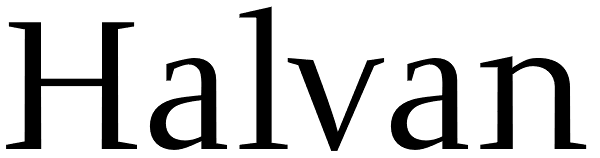
Halvan
HALVAN –a striking type with half-serifs The Halvan font family comes in 5 styles from Roman to Bold, Italic and a Small Caps Version. Each version includes old style figures and lining figures. It is a versatile type and can be used in a wide range...